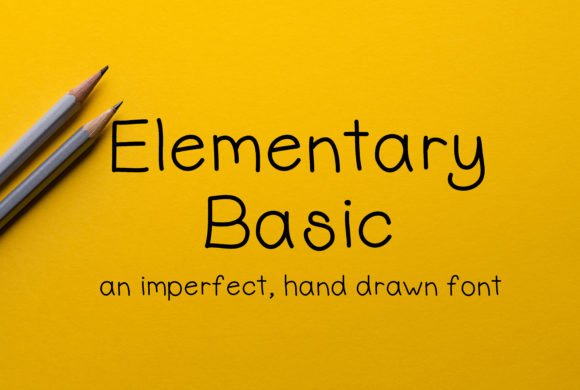
Get Ready to Add a Touch of Whimsy to Your Designs
Who doesn’t remember the excitement of receiving a handwritten note from a child, complete with wobbly lines and uneven letters? As designers, we strive to capture that same sense of authenticity and playfulness in our work. Whether it’s a children’s book, a school project, or a brand identity that screams fun and approachability, we need the right tools to bring our visions to life.
That’s where the Elementary Basic Font comes in – a charming, handwritten style font that effortlessly adds an authentic touch to any design. With its endearing imperfections and carefree feel, it’s the perfect addition to any project that needs a dash of whimsy. And the best part? It’s incredibly versatile, making it a valuable asset in any designer’s toolkit.
Elementary Basic Font Key Features
- Unique Characteristics: Elementary Basic Font features a clean and simple design, with a focus on readability and legibility, making it an ideal choice for body text and headings in various contexts.
Review of Elementary Basic Font
At first glance, I thought Elementary Basic Font was going to be a straightforward, no-frills typeface. And in many ways, it is. But that’s also what makes it so charming. ✨ The clean lines and minimal ornamentation give it a timeless quality that’s hard to resist.
Here are some of the things that I think really shine:
- Its readability: Elementary Basic Font is incredibly easy to read, even at small sizes. ✨
- Its versatility: It works well in both body text and headlines, making it a great choice for a wide range of applications. ✨
- Its simplicity: The lack of unnecessary flourishes means that the font never gets in the way of the content. ✨
That being said, there are a few limitations:
- Lack of personality: While Elementary Basic Font is certainly well-designed, it’s also a bit… safe. It doesn’t have the same level of character as some other fonts. ⚠️
- No bold or italic variants: While this isn’t a deal-breaker, it’s worth noting that the font only comes in regular weight. ⚠️
Overall, I think Elementary Basic Font is a solid choice for anyone looking for a clean, easy-to-read typeface. While it may not be the most exciting font out there, it gets the job done and does it well.
Getting the Most Out of Elementary Basic Font
Use Elementary Basic Font for:
– Creating a clean and minimalist design aesthetic.
– Highlighting important information or calls-to-action.
– Creating a cohesive brand identity.
Elementary Basic Font is commonly used:
– In digital signage and wayfinding systems.
– In branding and marketing materials.
– In educational materials and publications.
Alternatives to Elementary Basic Font for Designers
Futura
Futura is a sans-serif typeface designed by Paul Renner in the 1920s. It is a geometric sans-serif font that is often used in modern and minimalist designs. Futura is a more stylized and futuristic alternative to Elementary Basic Font, making it suitable for designs that require a sense of innovation and technology.
Helvetica
Helvetica is a classic sans-serif typeface designed by Max Miedinger and Eduard Hoffmann in the 1950s. It is a clean and neutral font that is widely used in corporate and editorial designs. Helvetica is a more versatile alternative to Elementary Basic Font, offering a wider range of weights and styles to suit different design needs.